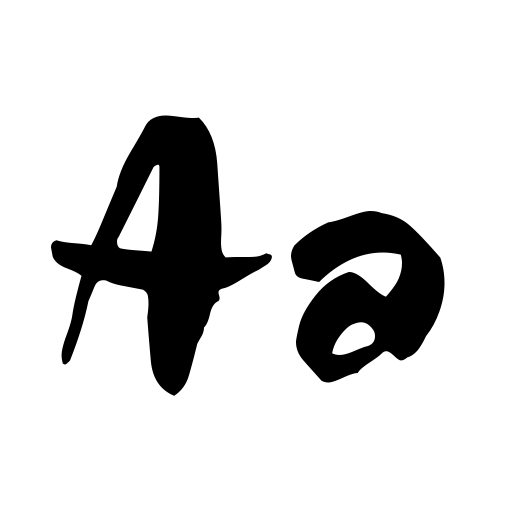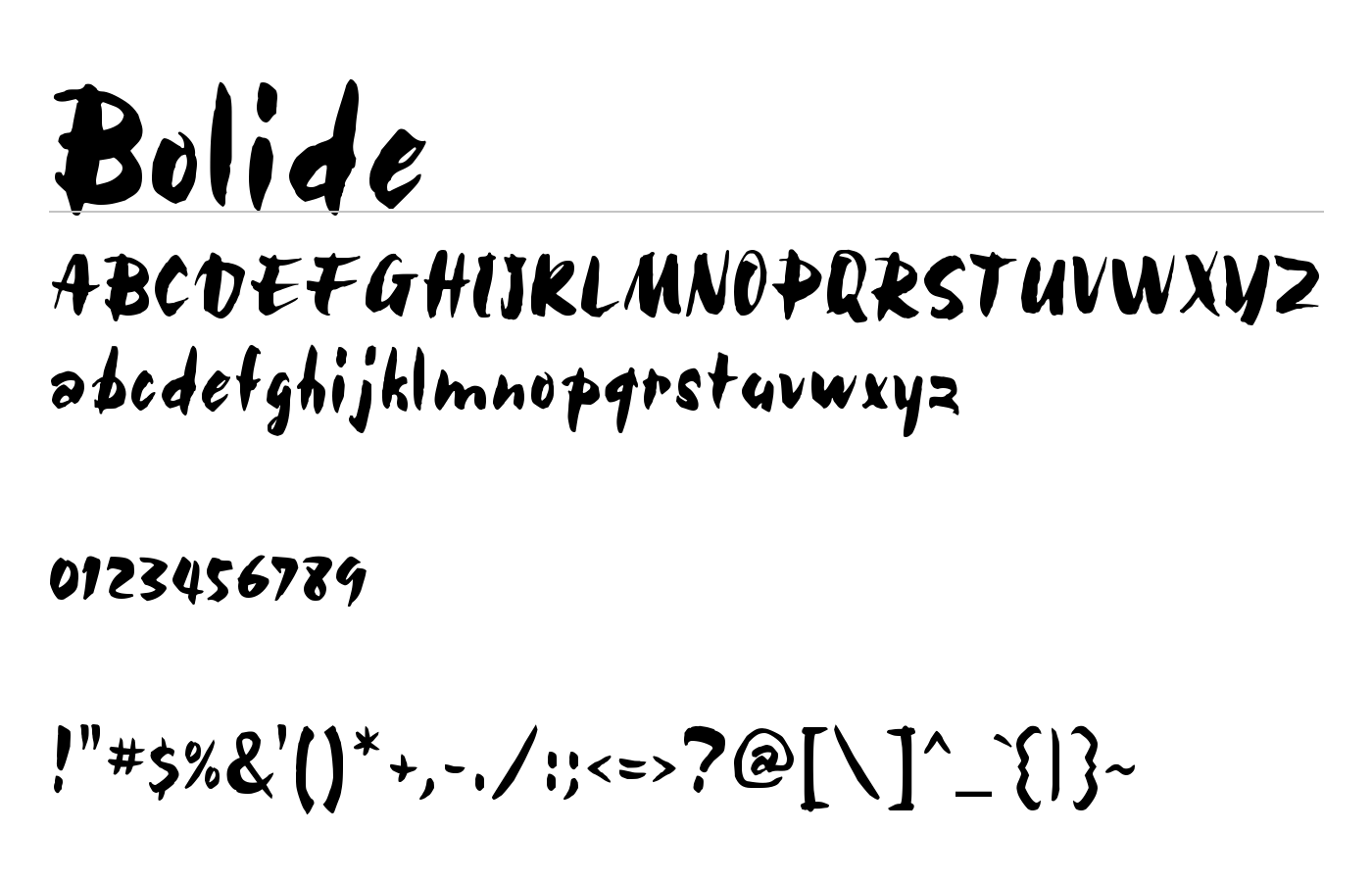
Bolide is a bold, brush-script style font with a dynamic and energetic character, featuring irregular, hand-drawn strokes that give it a spontaneous and artistic feel. Its strong, slightly condensed letterforms and expressive lines make it ideal for creative designs, eye-catching headlines, and projects that want to convey a casual, urban, or adventurous vibe. This font works well in branding, posters, and packaging where a bold, handcrafted aesthetic is desired.
Bolide Font